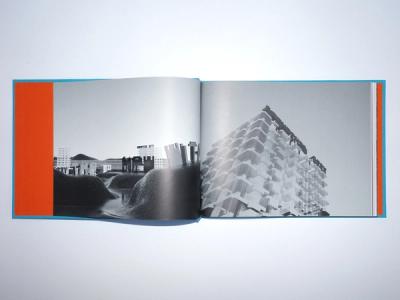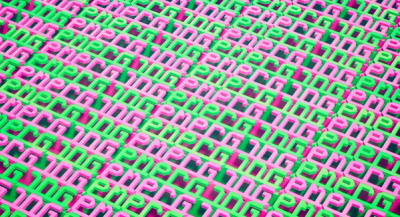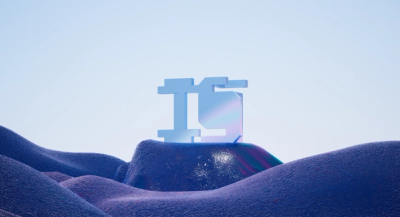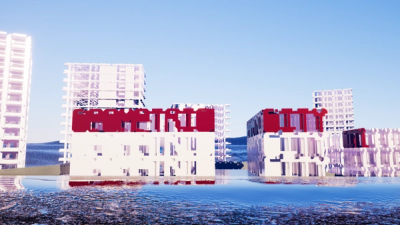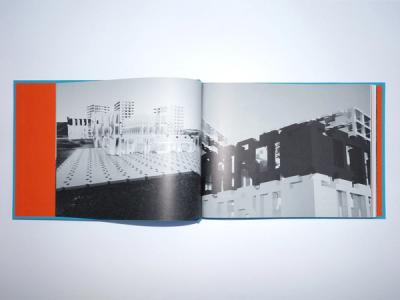
Vasarely Gaming 1953
by Diorama Type Partners
Initiated in 2017, the theme for our second issue was based on a quote from painter Victor Vasarely, which invited us to question the new forms that the reading experience could take. This is why, exclusively for Revue Diorama No.2, an interactive extension was added to the print and web in the form of a video game. Linked to the book, this virtual diorama representing a city of words reshapes Vasarely’s sentence into a real situation of gameplay: “Future is emerging with the new geometric city, polychrome and solar. Plastic art will be kinetic, multidimensional and communal, abstract for sure and close to the science.”
Mesh in use in Revue Diorama Geometric City (1/2) Discover
Having as basic principle in our video game to be able to stand up, Mesh typeface populates the world of Vasarely with its letters and can be read as a 3D type specimen all throughout the virtual world of Diorama No.2. We can see the quote evolving in Mesh under many seams: gigantic, luminous, material to construct buildings, ceilings, etc. It is by using the same vanishing point to shoot that we obtain the .otf version of 2D Mesh.
In 2017, our idea was to do a “3D series”, original concept of a digital-magazine, available online on our e-shop www.revue-diorama.com. Establishing a real dialogue between the two supports, it is through updates — like episodes of a tv-show — that the contributions from the publication are interpreted into a 3D object and integrated into the game. An evolutionary work giving rise to various digital ambulation events. We will try to make it available as soon as possible, free to download, on our e-shop :)